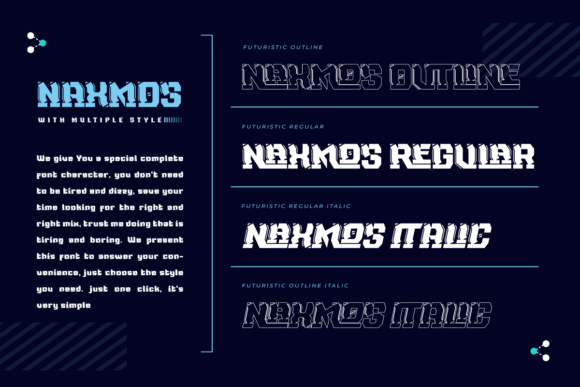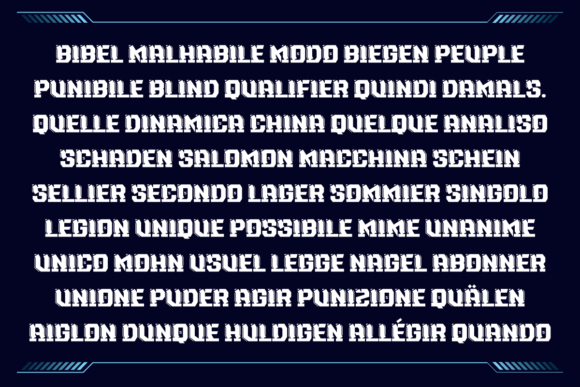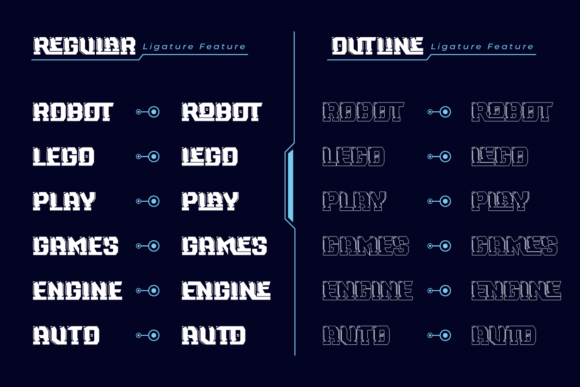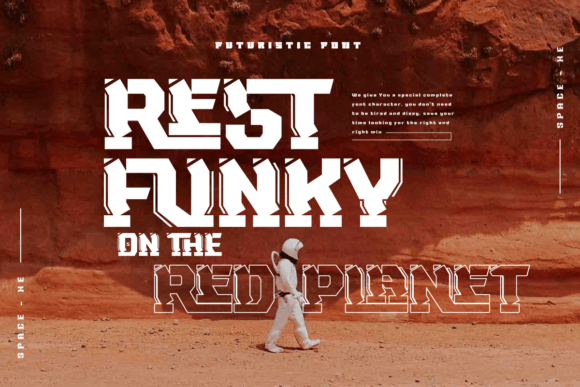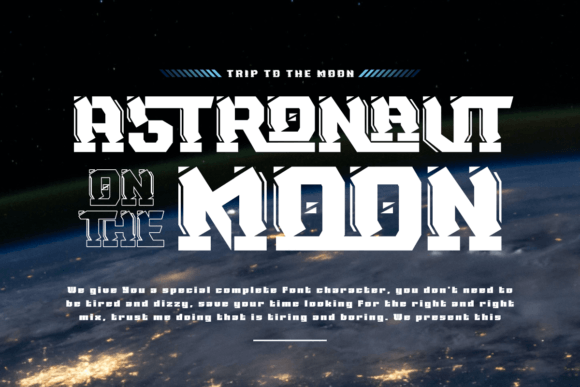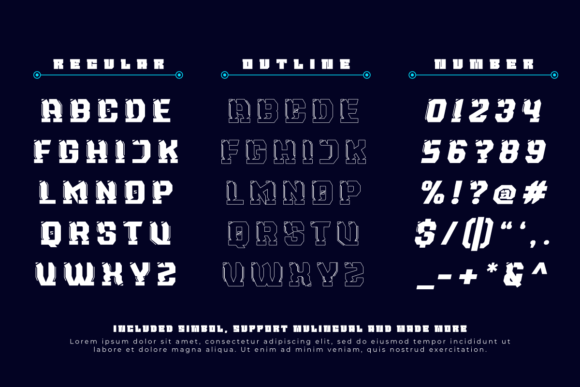
Introduction to Naxmos Font Font
Fonts play a crucial role in design, and the Naxmos Font font is a typeface that brings both character and versatility to any project. Whether you’re working on a branding project, a website, or a print design, the Naxmos Font font offers a unique style that can elevate your work.
Naxmos is a futuristic font with charming characters and a galaxy alternative and cyberpunk theme.
It has a distinctive futuristic design Use it to create time-traveling movie posters for futuristic or extraterrestrial productions.
Key Features of Naxmos Font Font
Why Choose Naxmos Font Font?
The Naxmos Font font is more than just a typeface – it’s a design tool that helps you communicate your message with style and clarity. Its unique character set and versatile design make it suitable for a wide range of applications, from elegant invitations to bold headlines.
With its carefully crafted letterforms and balanced proportions, the Naxmos Font font ensures readability and visual appeal across all mediums.
What makes Naxmos Font font special?
The Naxmos Font font stands out with its unique design, exceptional readability, and versatility across various design applications.